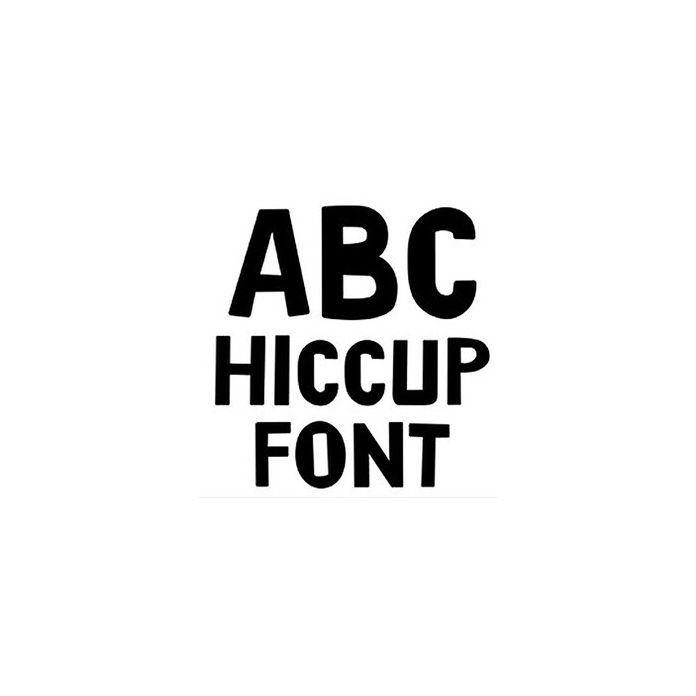
Hiccup is a fun and whimsical font that will add just the right touch to to your project. Visit Lori Whitlock on her blog, Facebook, YouTube, and Instagram accounts for ideas and inspiration using her files.